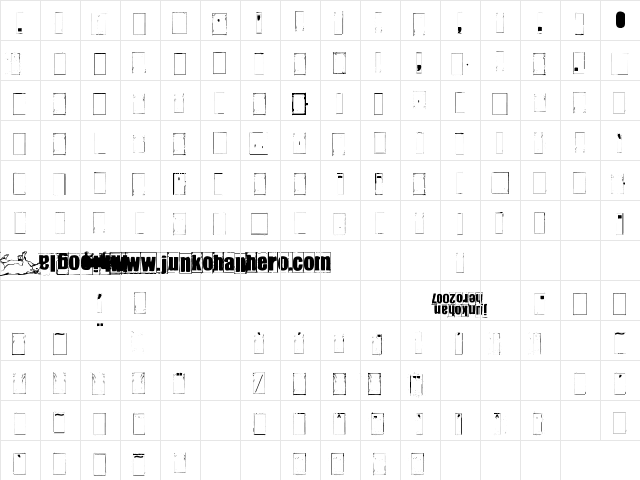
IKHIOOGLAwithout Regular
| Designer | junkohanhero |
Design Context for IKHIOOGLAwithout Typeface
IKHIOOGLAwithout is a composed and adaptable typeface that performs quietly and consistently across a wide range of design contexts.